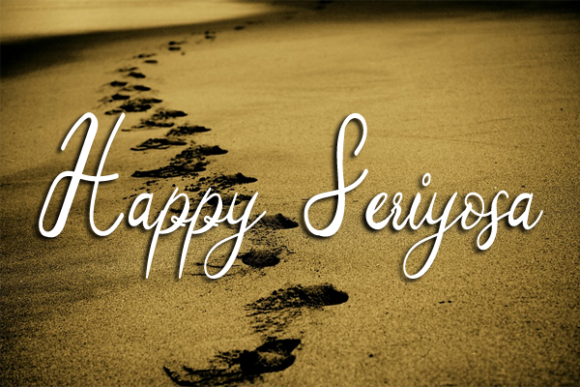
Are you ready to unleash the power of words and captivate your audience with captivating designs? Look no further than our exquisite Happy Seriyosa font, a masterpiece crafted by the renowned RR Studio.
Happy Seriyosa is a breathtaking handwritten font that will ignite your creativity and elevate your designs to new heights. Its intricate swirls and graceful curves dance across the page, leaving an unforgettable impression on your readers.
Whether you're crafting eye-catching logos, designing unforgettable branding, or expressing heartfelt quotes, Happy Seriyosa is the perfect font to make your words shine. Its timeless charm will add a touch of elegance and sophistication to any project.
With each stroke of this enchanting font, you'll feel a surge of inspiration as your designs come alive. Its unique and beautiful touches will transform your words into works of art, leaving a lasting impression on all who behold them.
Don't settle for ordinary fonts that fade into the background. Choose Happy Seriyosa and watch your designs blossom into extraordinary creations that captivate and inspire. Embrace the power of words and let Happy Seriyosa guide you towards design excellence.